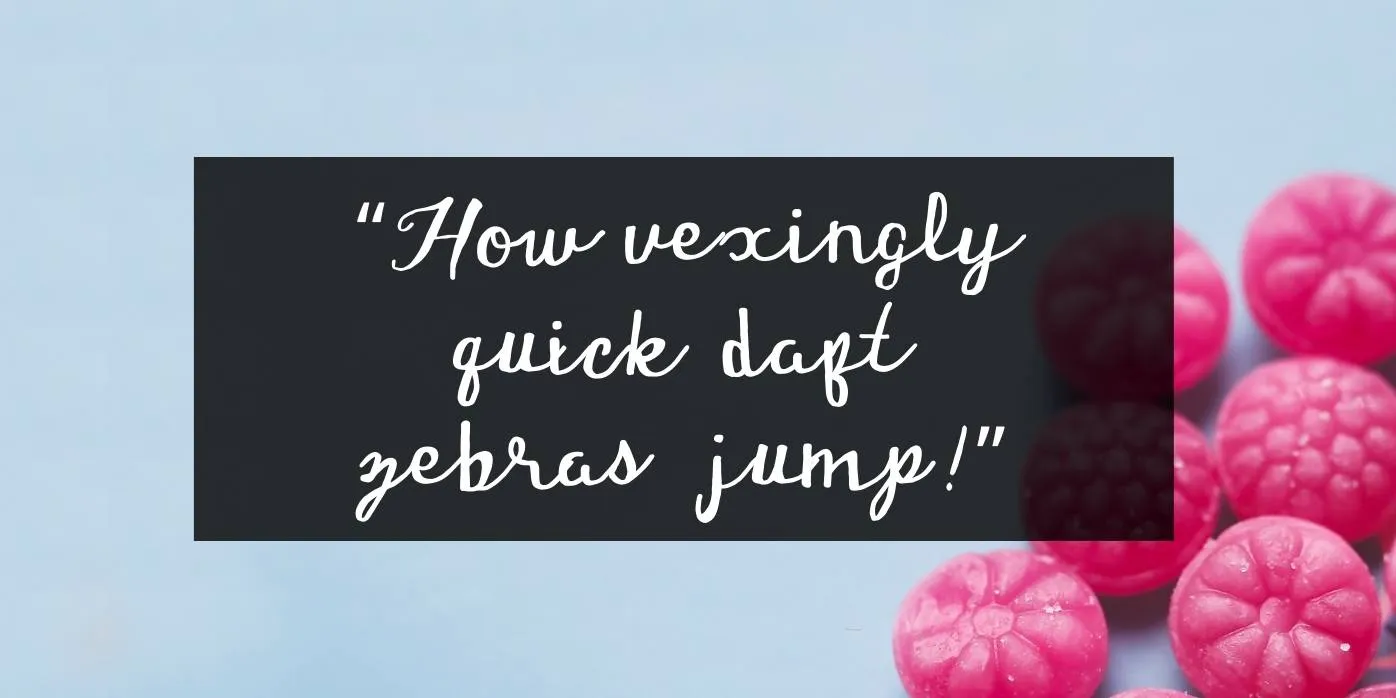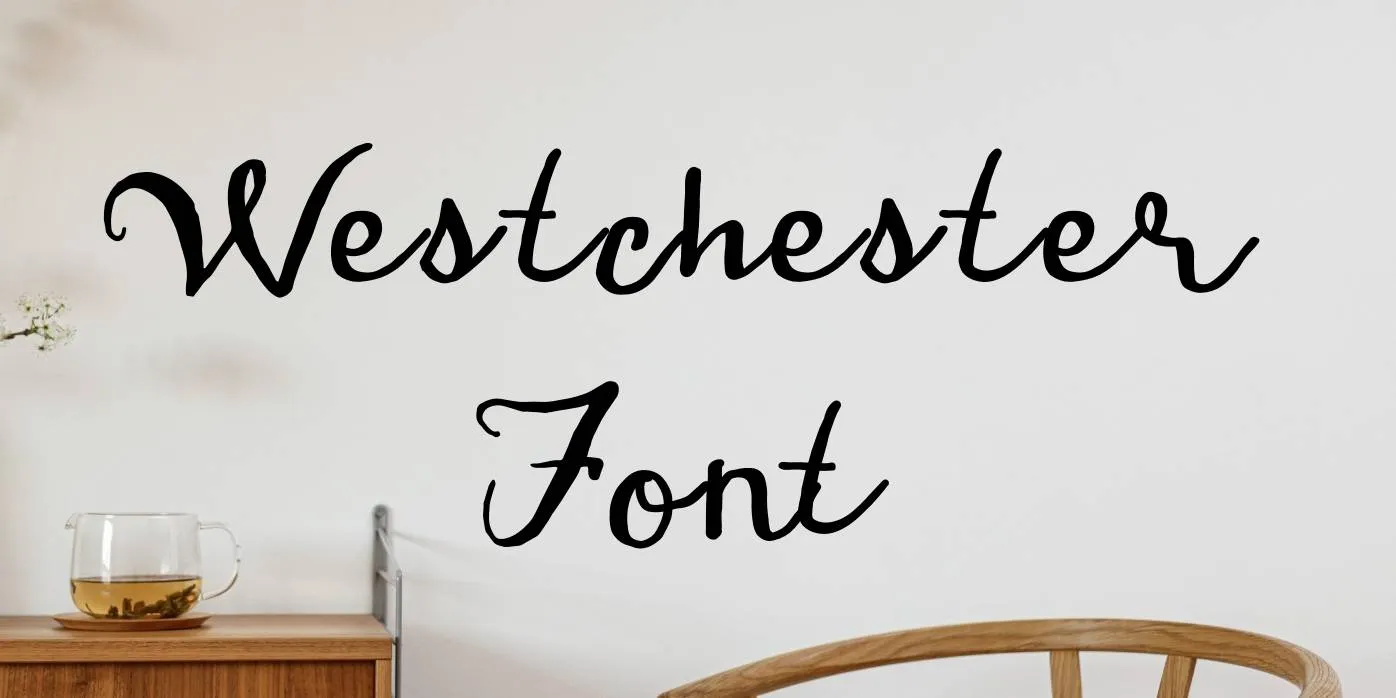
Westchester font
Westchester Font is a new Script typeface that was designed by Rawberry Strubarb Ink. The design was inspired by the hand lettering of Adrian Frutiger and the readability of his typefaces. This cozy Font is a great choice for any project that requires a modern, sophisticated look. It was released in the year 2017.
This awesome typeface is available in two weights, Regular and Bold. Each weight includes 1252 Latin, 1253 Greek, and Cyrillic character sets, as well as supports international languages. Westchester Font also comes with a set of Contextual Alternates, which allows you to create beautiful custom letters. Monotype Corsiva Font is similar to this cute font family.